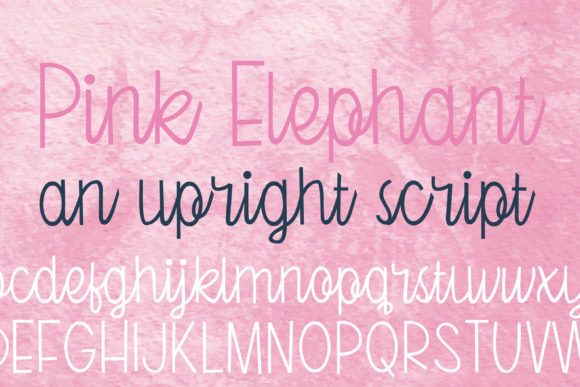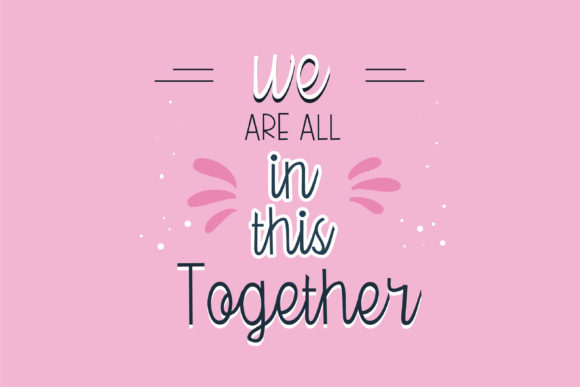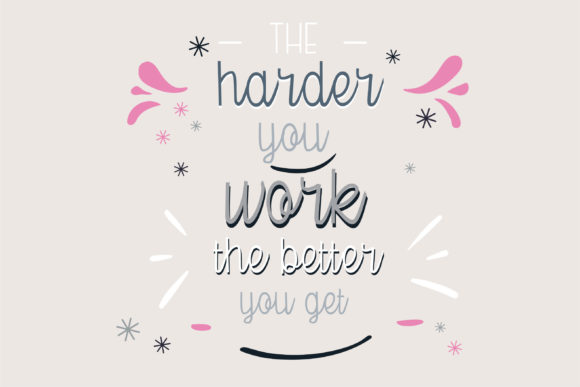
About Pink Elephant Font
“Pink Elephant” is an elegant and timeless handwritten font that exudes charm. It stands as the optimal choice for crafting captivating logos, impactful branding, and memorable quotes. Each letter possesses a distinct and exquisite touch, breathing life into your designs.
This font’s individualistic charm serves as a potent instrument for elevating your creative projects. “Pink Elephant” enables you to infuse a personal touch into your designs and effectively convey your brand or message. Handwritten fonts often evoke feelings of warmth, intimacy, and authenticity, qualities that Pink Elephant embodies perfectly.
The versatility of this font makes it suitable for various projects. Its aptness for logo design can emphasize the uniqueness of your brand. Moreover, it facilitates the creation of striking headlines for posters, brochures, business cards, and other promotional materials. The handwritten style of Pink Elephant facilitates establishing an emotional connection with your designs and easily captures the audience’s attention.
In conclusion, the “Pink Elephant” font stands as an impressive and distinctive choice for your creative endeavors. With the warmth and character inherent in its handwritten style, it serves as a wonderful tool for adding an aesthetic dimension to your designs.